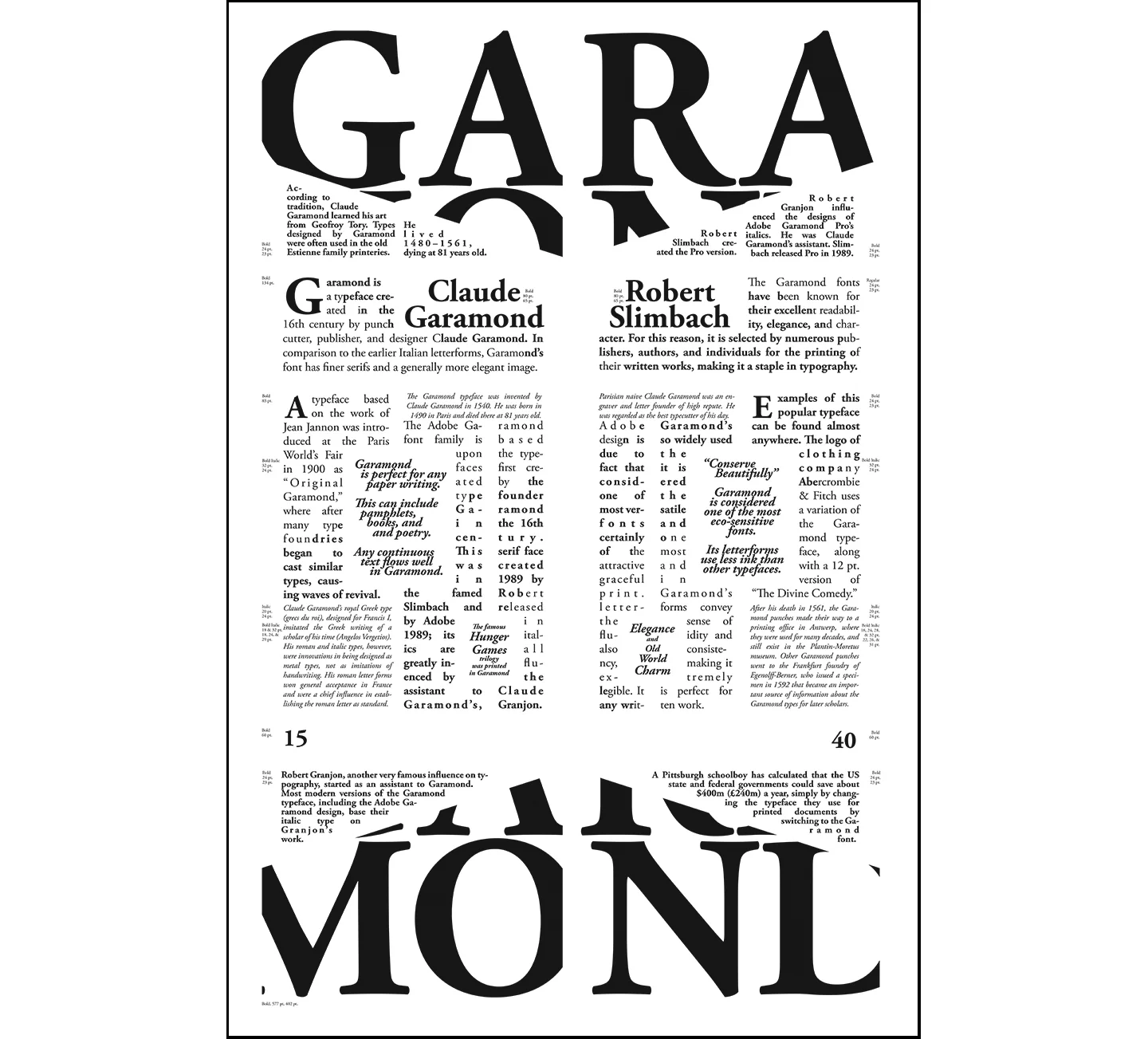
free font adobe garamond pro
A serif typeface with 6 styles available from adobe fonts for sync and web use.
Free font adobe garamond pro. Adobe fonts is the easiest way to bring great type into your workflow wherever you are. View sample text character map user rating and review for adobe garamond pro regular. Download adobe garamond pro font family adobe garamond pro by with regular weight and style download file name is agaramondpro regularotf. Explore adobe garamond designed by robert slimbach at adobe fonts.